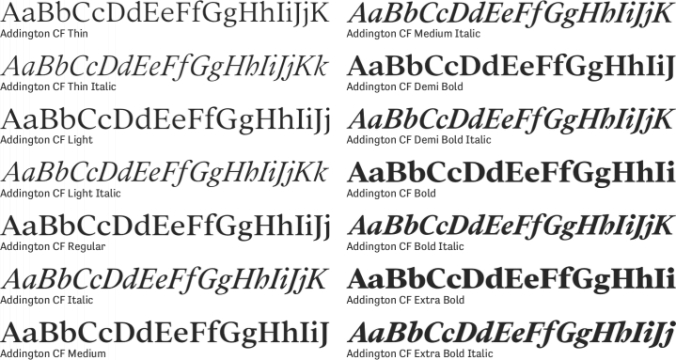
In this post, we would like to introduce you to a great serif typeface that is known as the Addington CF Font. This typeface is available for free download and it was published by Connary Fagen Foundry.
There are almost 14 weights available in this typeface and all of them are reliable to use and easily pairable with the voga font and its different styles.
The main thing about this typeface is its character then provides great details to the user. This typeface is also the reliable, charming, and trustworthy serif typeface that can be used in any different project.
This a practical typeface that is very much versatile in nature and works great with other calligraphy, traditional serifs typefaces like theĀ graphik font to design new and creative designs.